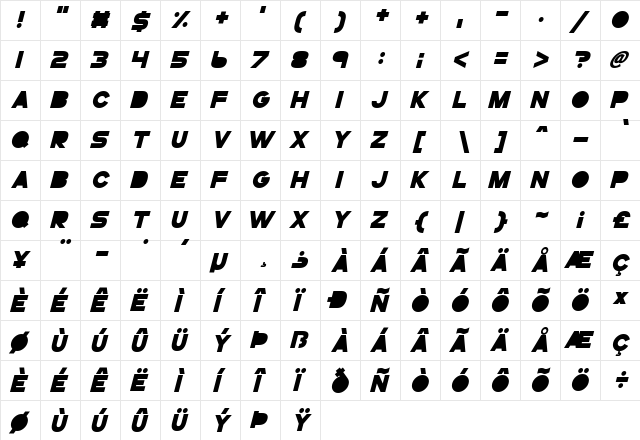
GoGoPosterPunch Bold Italic Font Preview
GoGoPosterPunch Bold Italic
Design Context for GoGoPosterPunch Typeface
GoGoPosterPunch takes a measured approach to typography — its balanced proportions and neutral character make it a reliable workhorse for both digital and print work. The slanted form adds forward momentum and visual energy. The heavy weight commands attention and anchors typographic hierarchies.
Pro Tip: Use GoGoPosterPunch for emphasis, pull quotes, and subheadings where its slanted energy can add rhythm to the layout.